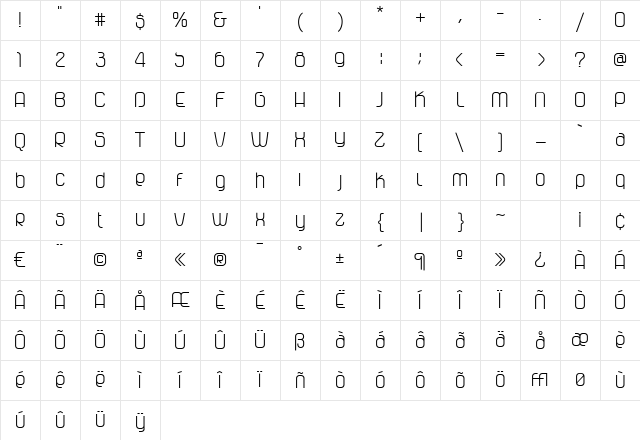
Complete Vagebond C Light Roman glyph index. Displaying only characters natively supported by Vagebond C Light Roman font.
Vagebond C Light is a composed and adaptable typeface that performs quietly and consistently across a wide range of design contexts. Its slender proportions lend an understated elegance to any composition.